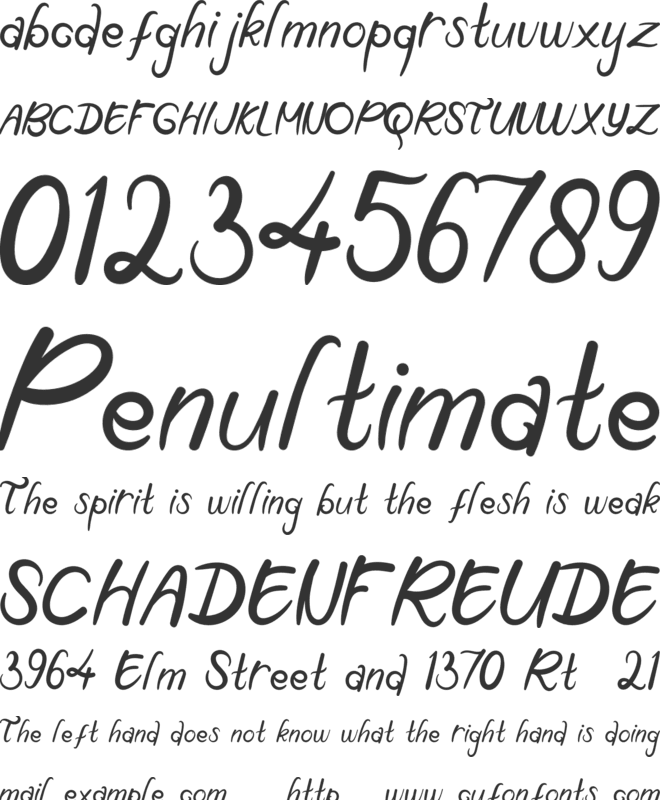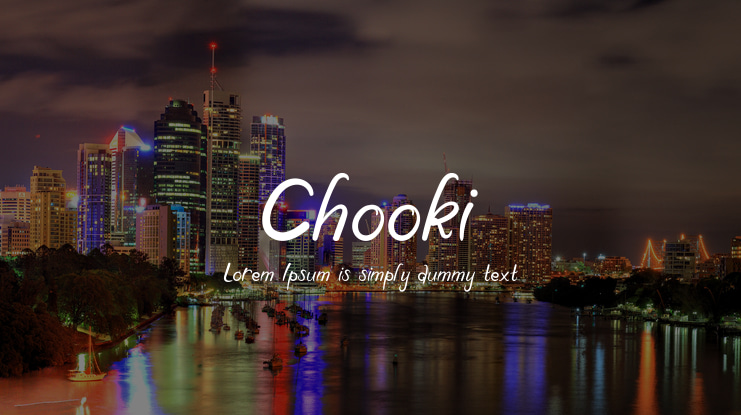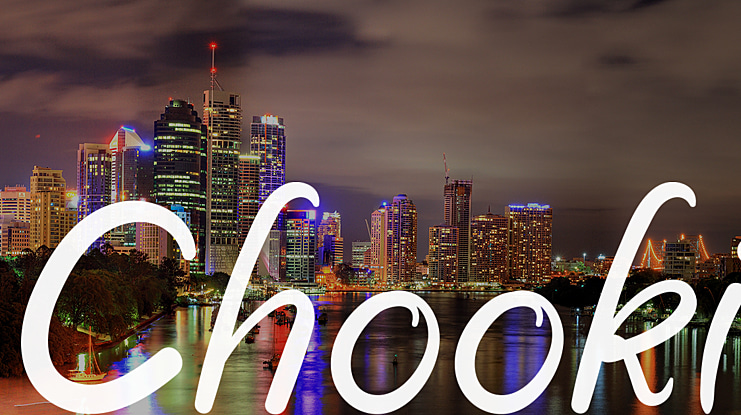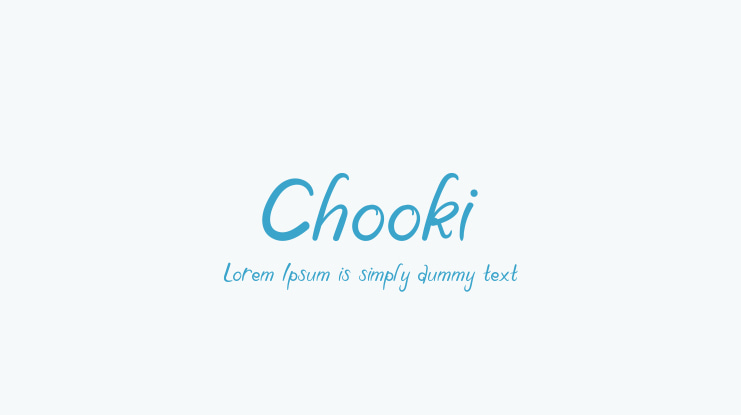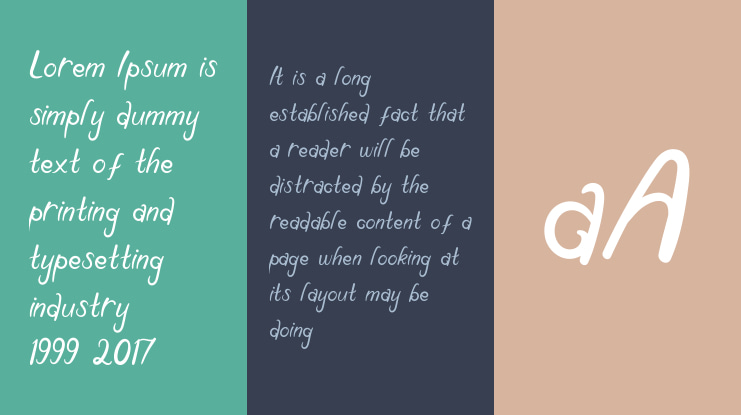
Chooki Font Family
The Chooki is an elegant, modern display font. It has a playful feel which makes it perfect for magazines, posters, children books, and every other design which needs a fun touch.